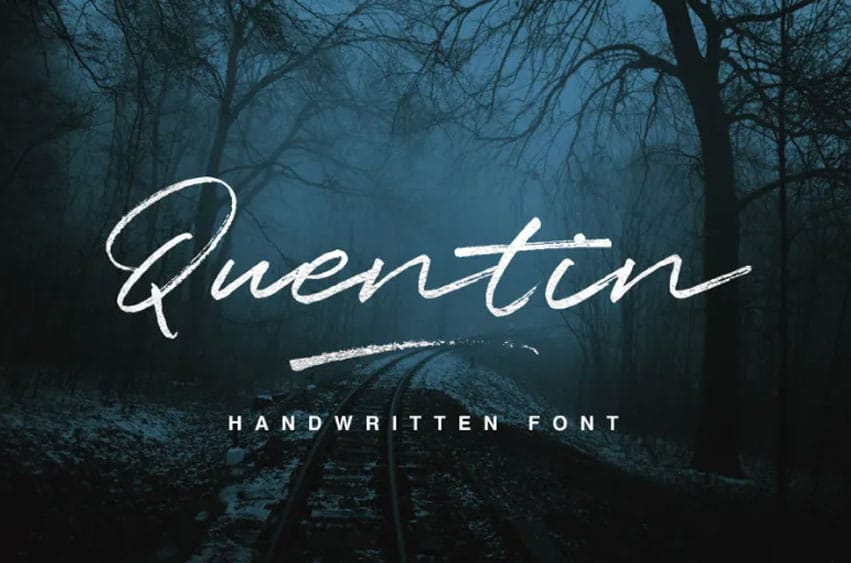
Quentin Font was inspired by handwriting. The rough texture of its dry strokes makes this typeface appear real while its distinct taste seems to emanate natural curves.
Quentin font will work great as branding asset due to its signature flair; product packaging or social media ads would also benefit greatly from using this font.